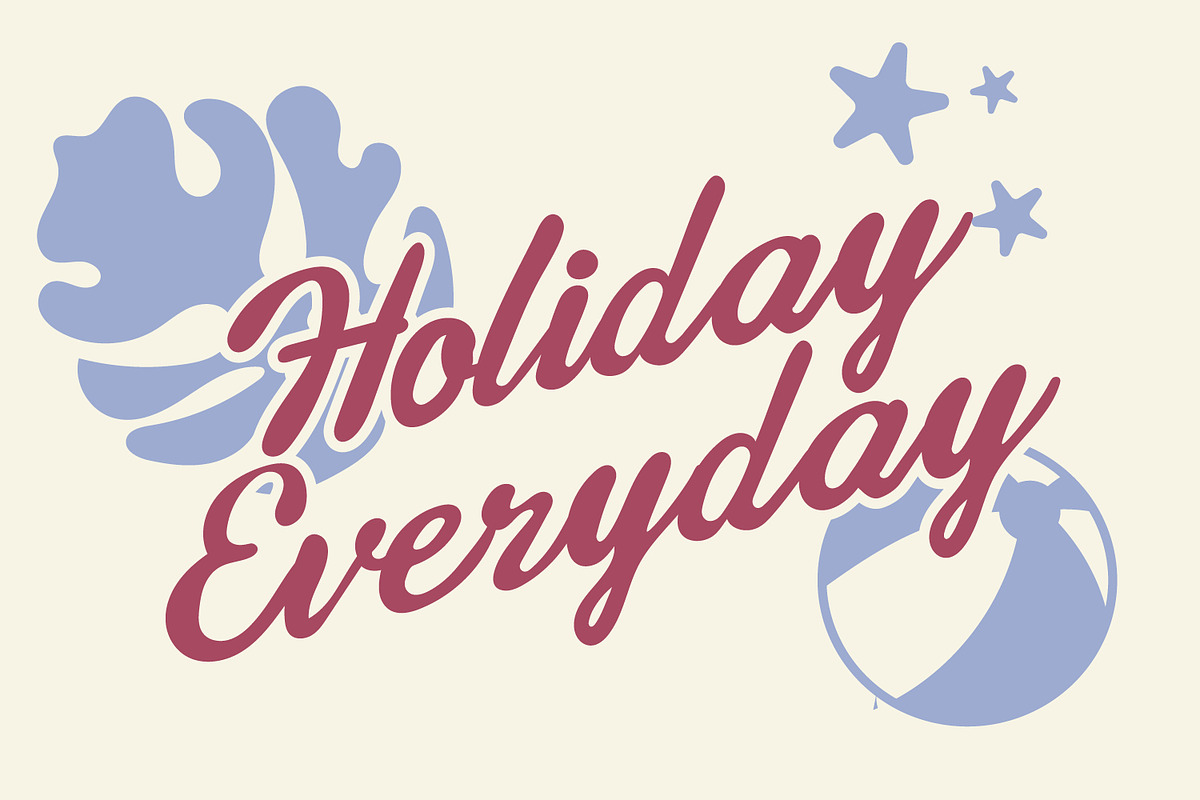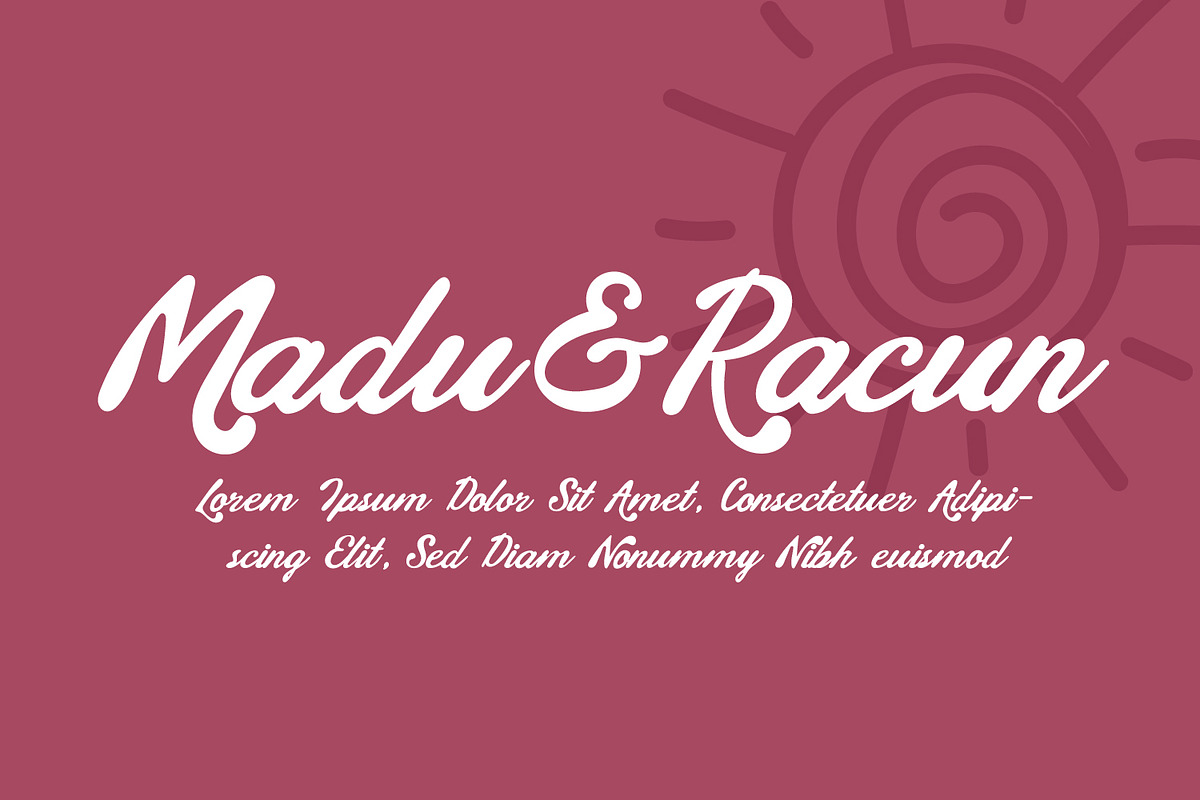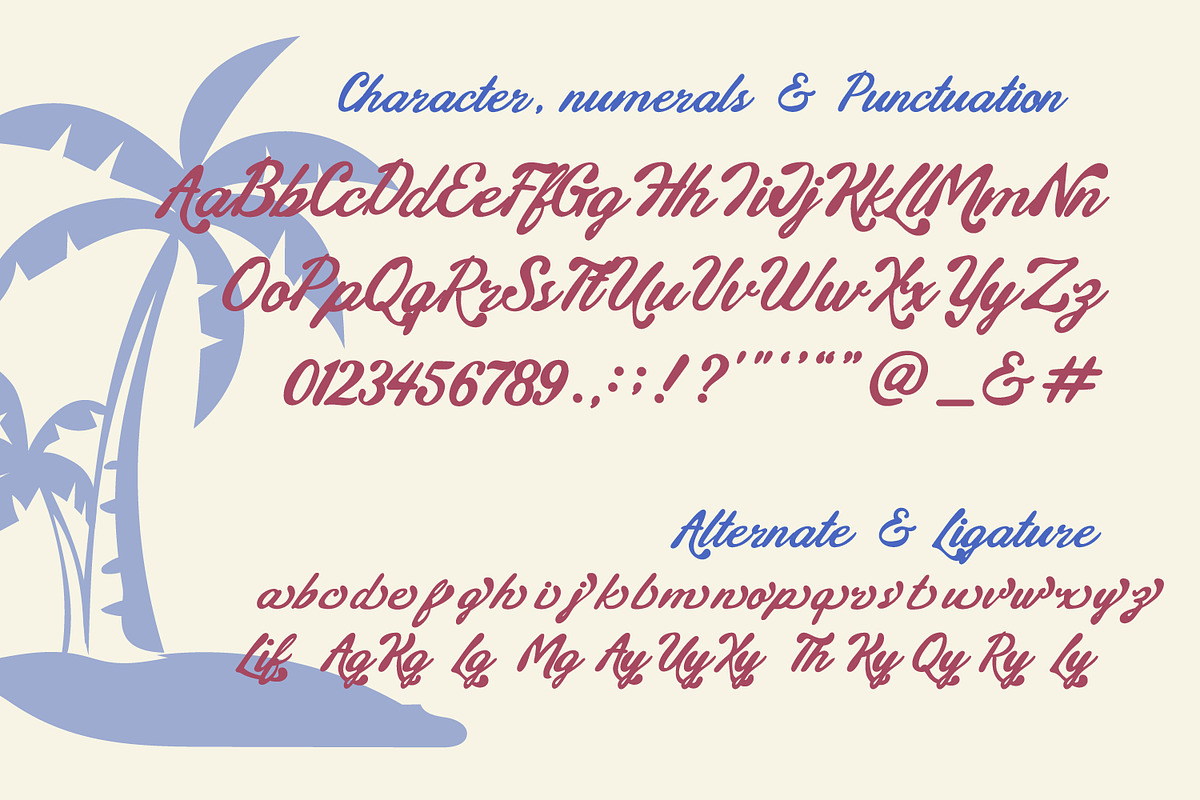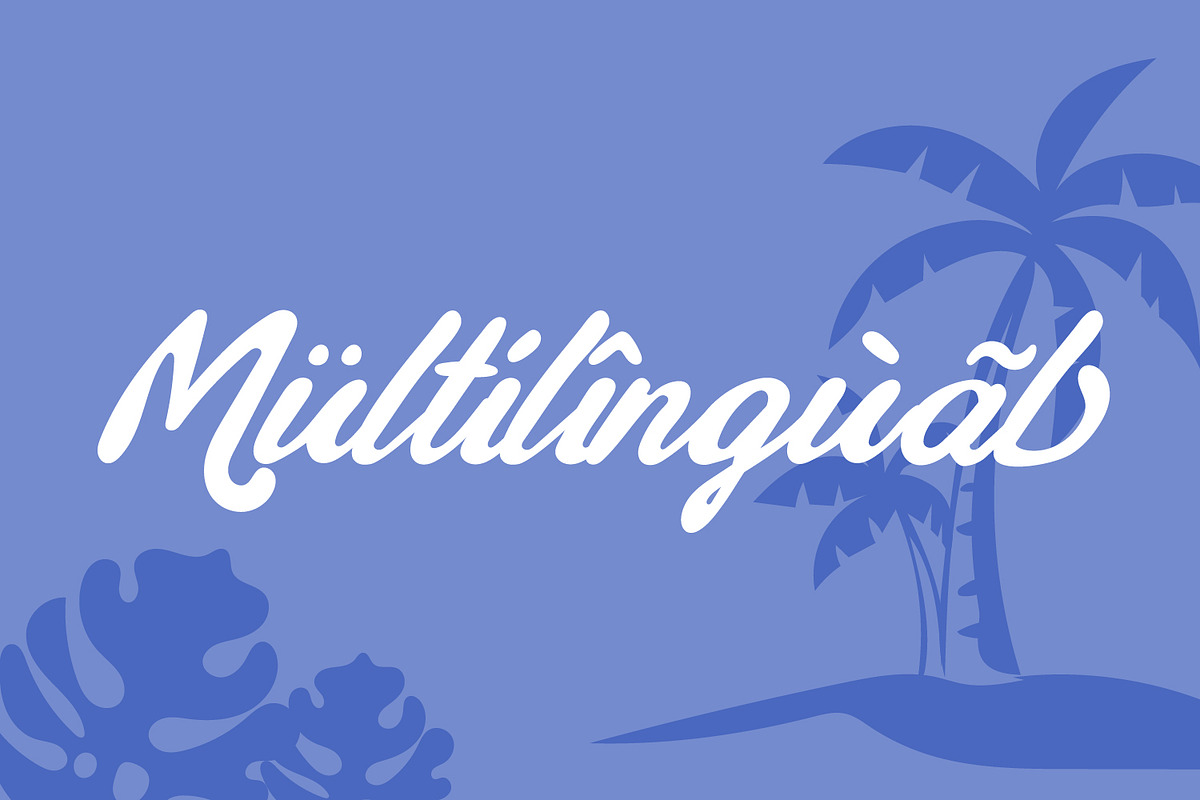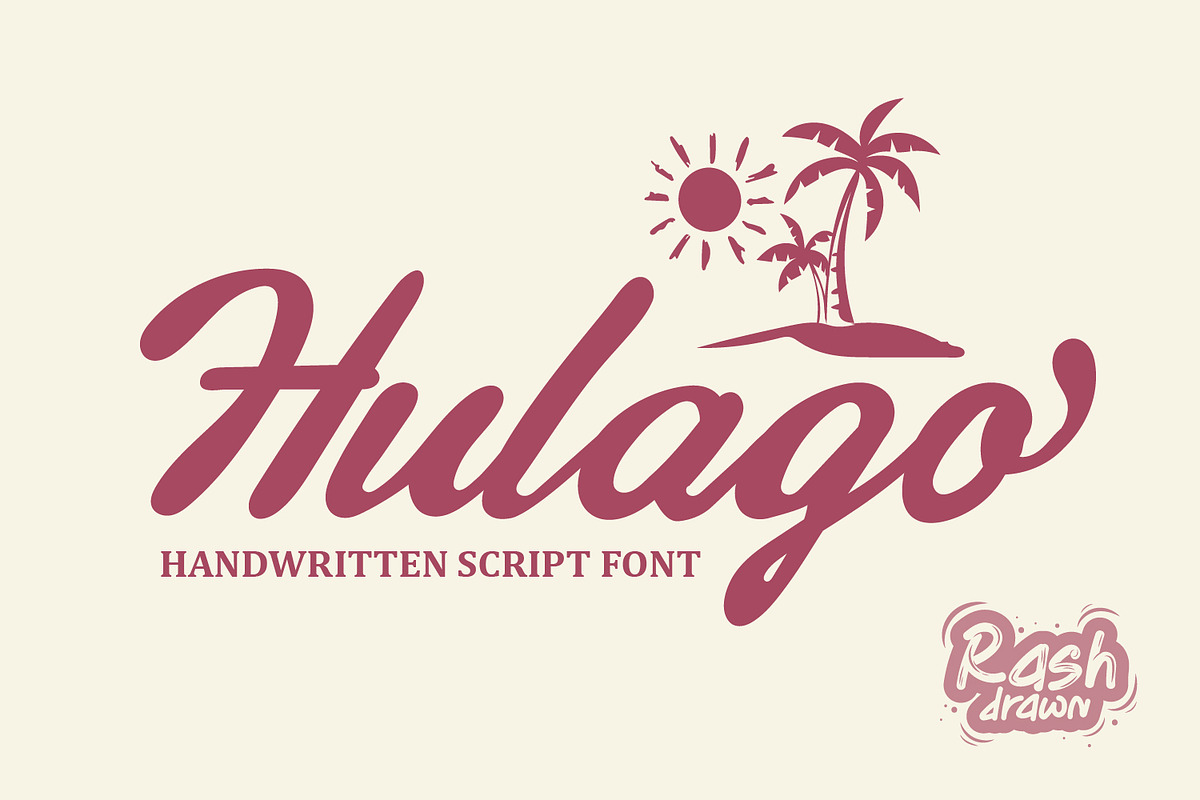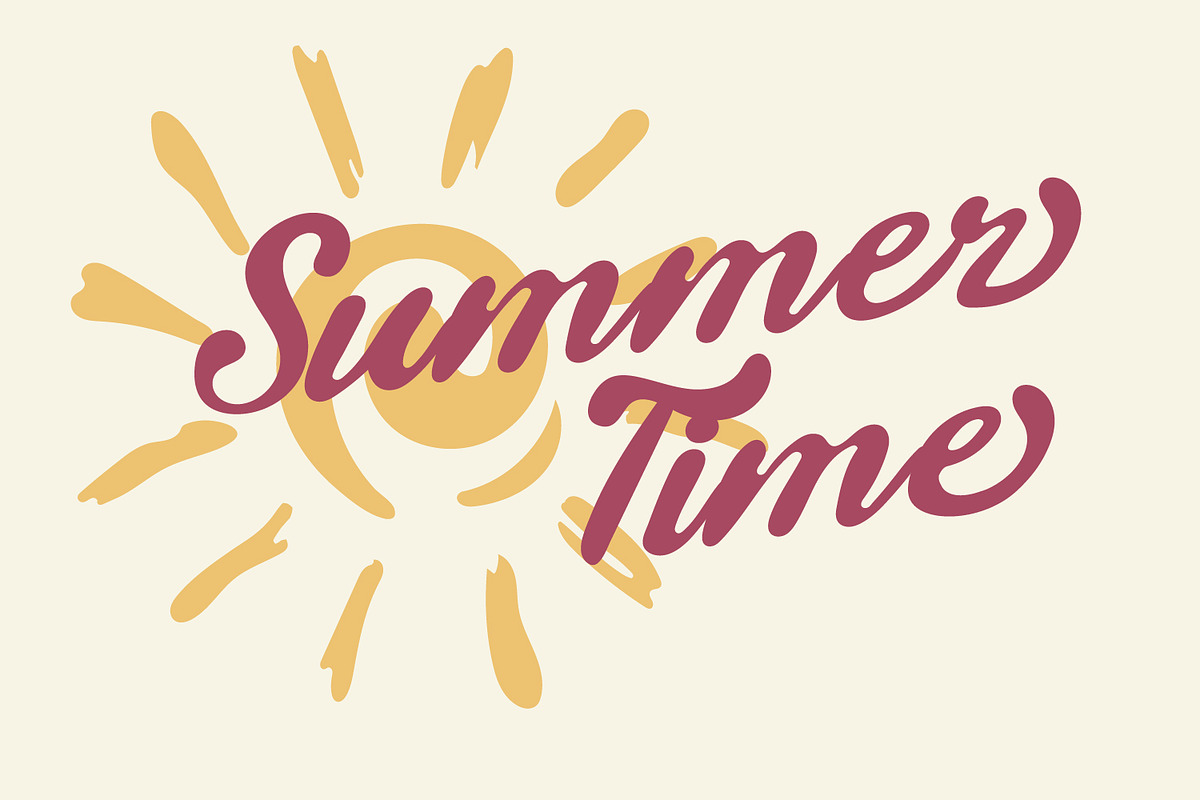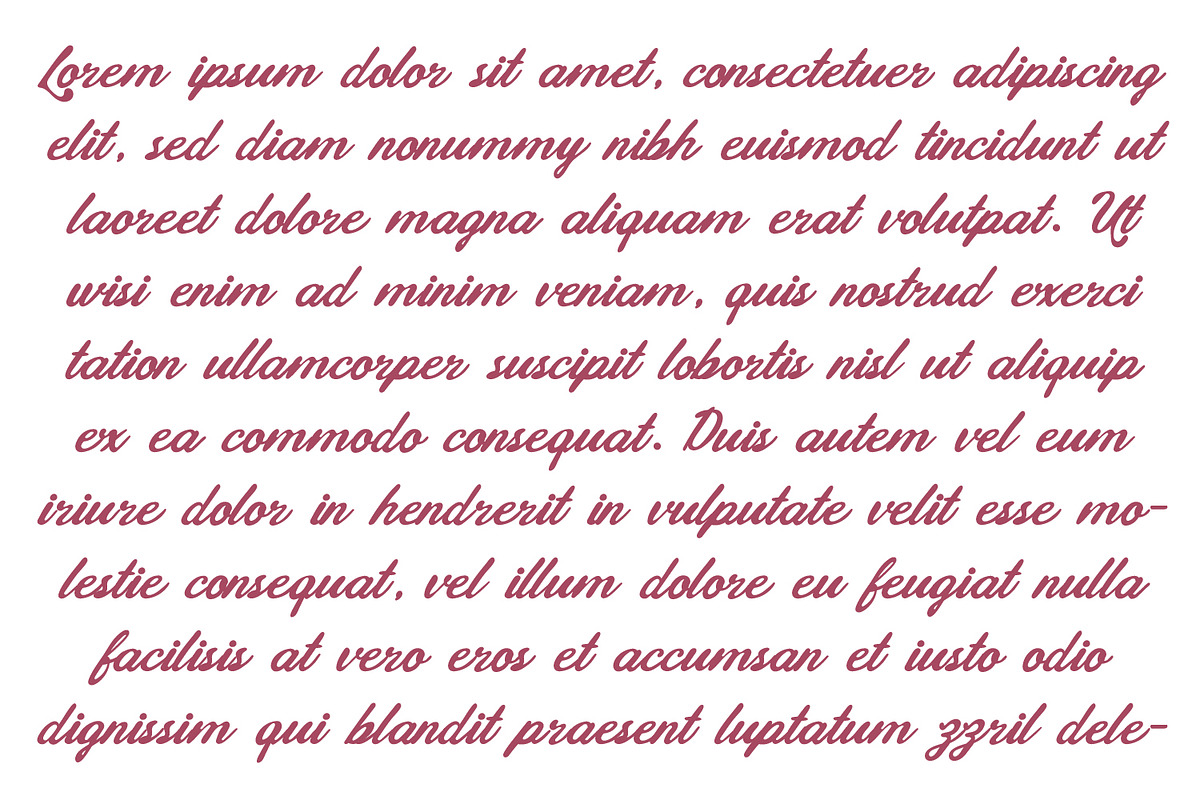
Hulago
Hulago is a fun and unique and retro handwritten font. Use it to turn any design idea into a true standout. Get inspired by its unique charm and create lovely designs